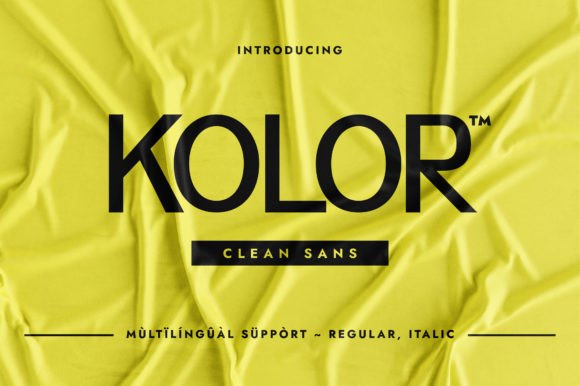
Behold, the captivating Kolor font family, a minimalist's dream, a designer's delight! Brace yourself for a typographic journey like no other, where simplicity meets sophistication with undeniable charm. Kolor's clean geometric sans serif structure has been meticulously crafted to present you with a symphony of visual harmony. This font is not just a collection of letters; it's an invitation to explore a realm of endless creative possibilities.
Imagine your designs adorned with Kolor's elegant curves and sharp angles, effortlessly commanding attention on posters that speak volumes, packaging that exudes luxury, and business cards that leave a lasting impression. Kolor's versatility transcends boundaries, enhancing your invitations with a touch of refined grace and transforming flyers into dynamic works of art. Experience the allure of cosmetics and perfumes elevated to new heights, where every letter dances in perfect harmony with your vision.
Immerse yourself in the world of Kolor, where minimalism meets impact, where simplicity captivates and functionality flourishes. Let your creativity soar as you witness your designs transformed into masterpieces, captivating every eye that beholds them. Join a community of discerning designers who have embraced Kolor's brilliance, propelling their projects to unprecedented levels of visual excellence.